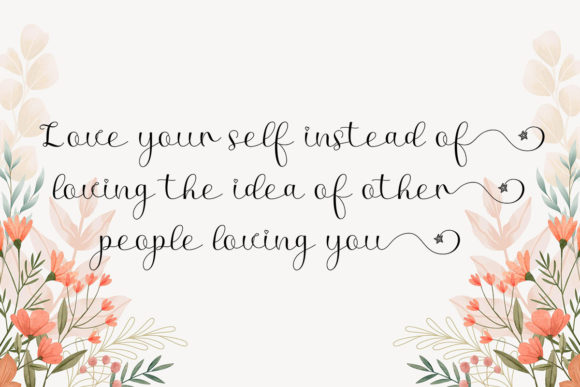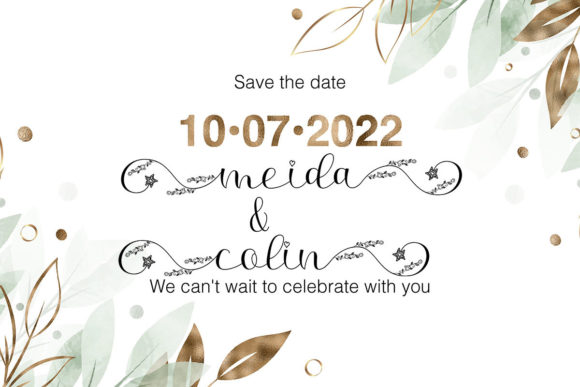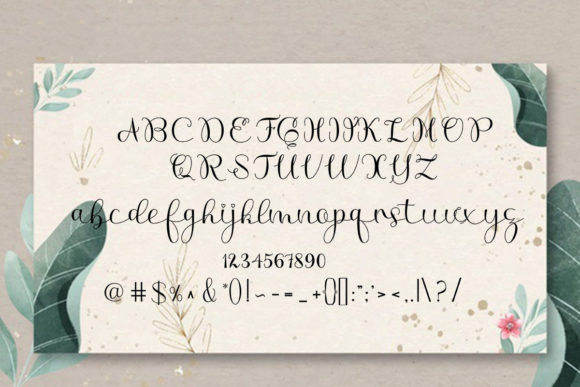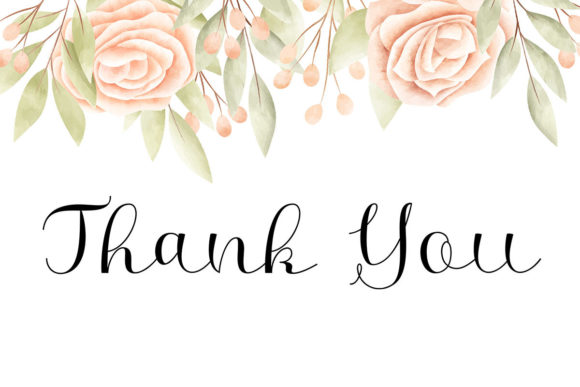
Unleash Your Creativity with the Afia Script Font
Have you ever stared at a blank page, wondering how to bring your creative vision to life? We’ve all been there – the blank canvas, the empty screen, the spark of an idea waiting to be ignited. That’s where the Afia Script Font comes in – a magical script font that will transform your designs into stunning works of art.
This elegant font is designed to elevate your DIY projects, social media graphics, and handwritten typography. With Afia Script Font, you can add a touch of sophistication and whimsy to your creations. Plus, its PUA encoding makes it easy to access all glyphs and swashes, giving you complete control over your design. Whether you’re a seasoned designer or a creative enthusiast, Afia Script Font is the perfect tool to help you unleash your imagination.
Afia Script Font Key Features
- Font Family: Afia Script
- Font Style: Script
- Resolution: Supports high-resolution displays with crisp and clear typography
- Unique Characteristics: Handwritten, elegant, and sophisticated script font with a wide range of ligatures and swashes, ideal for creative and design-intensive applications
A Designer’s Honest Review of Afia Script Font
As a designer, I’ve had the chance to work with many fonts, but Afia Script Font has left a lasting impression on me. Here’s my honest review.
- The elegant and flowing lines of Afia Script Font make it perfect for creating a luxurious and high-end feel in any design project.
- The font is highly legible, even at smaller font sizes, which is a big plus for any designer looking to use it for body text or captions.
- The script font has a beautiful cursive feel without being too ornate or overwhelming, making it versatile for various design applications.
- The font may not be the best choice for titles or headings where boldness and emphasis are crucial, as it can get lost in larger font sizes.
- Some characters, such as the letter “S”, may require more careful spacing to maintain the overall flow of the text.
Afia Script Font is a beautiful and elegant script font that is perfect for creating a luxurious feel in any design project. While it may have some limitations, it’s a great addition to any designer’s toolkit. I highly recommend giving it a try and experimenting with it in your next design project.
Getting the Most Out of Afia Script Font
Afia Script Font is ideal for:
- Quotes and motivational messages
For optimal results, use Afia Script Font in combination with elegant graphics and subtle color schemes.
Afia Script Font is commonly used for:
- Handwritten-style text
- Script-style titles and headings
- Embellished text effects